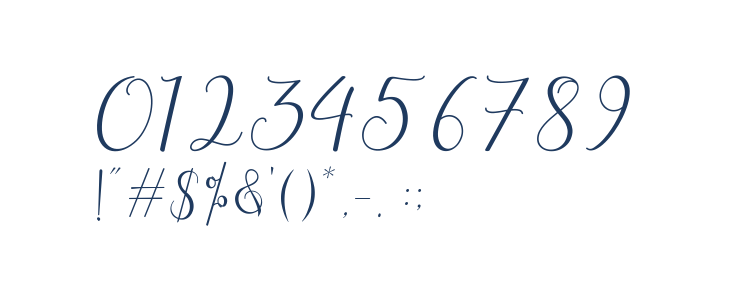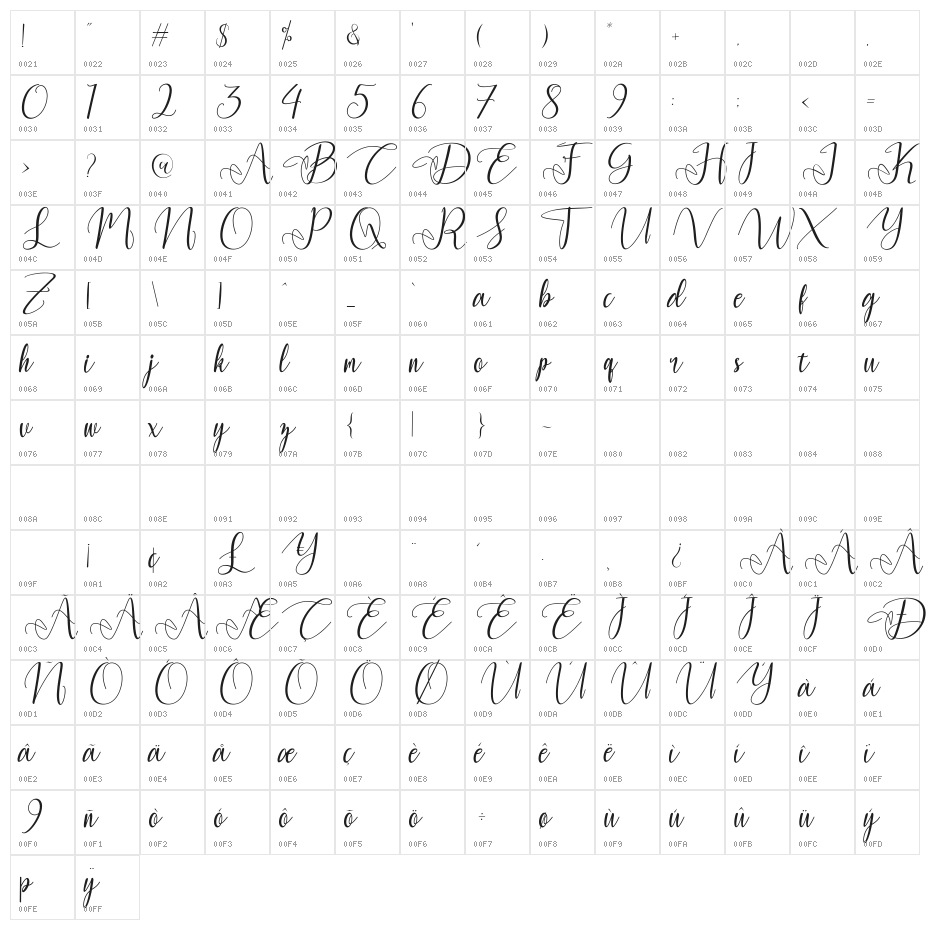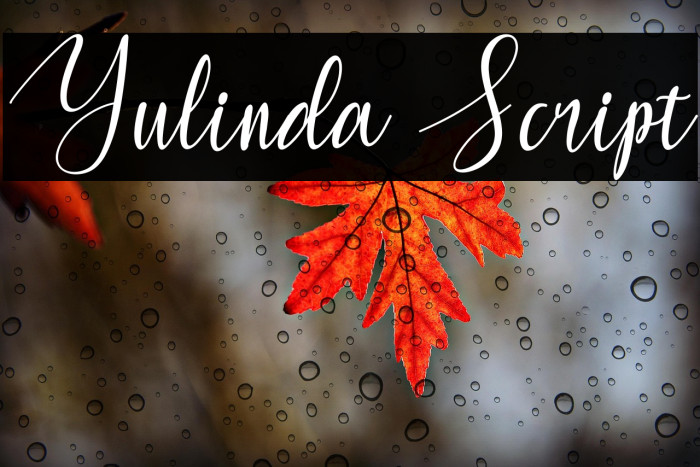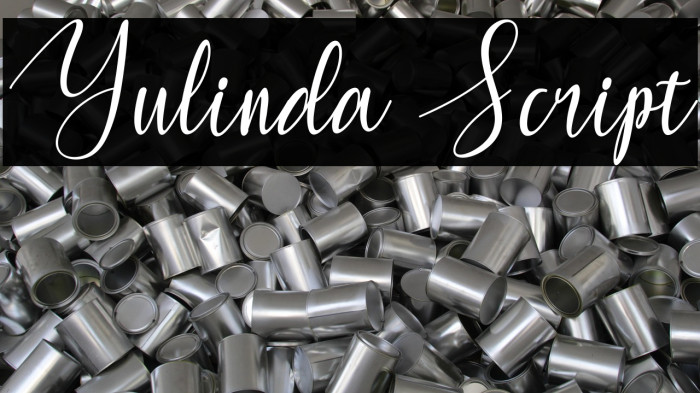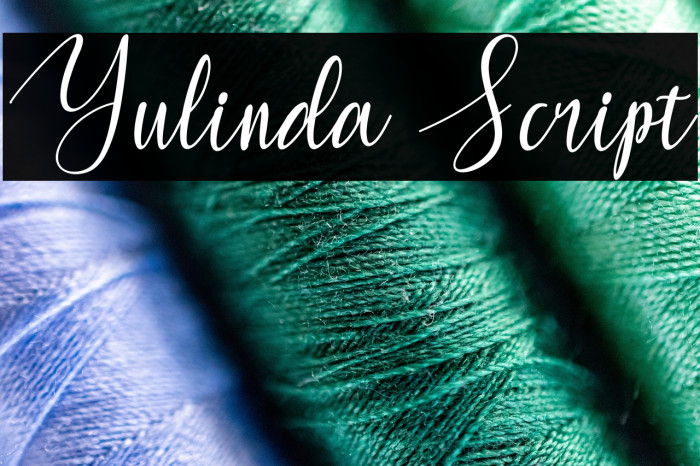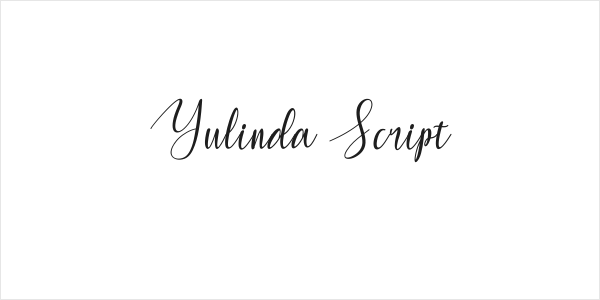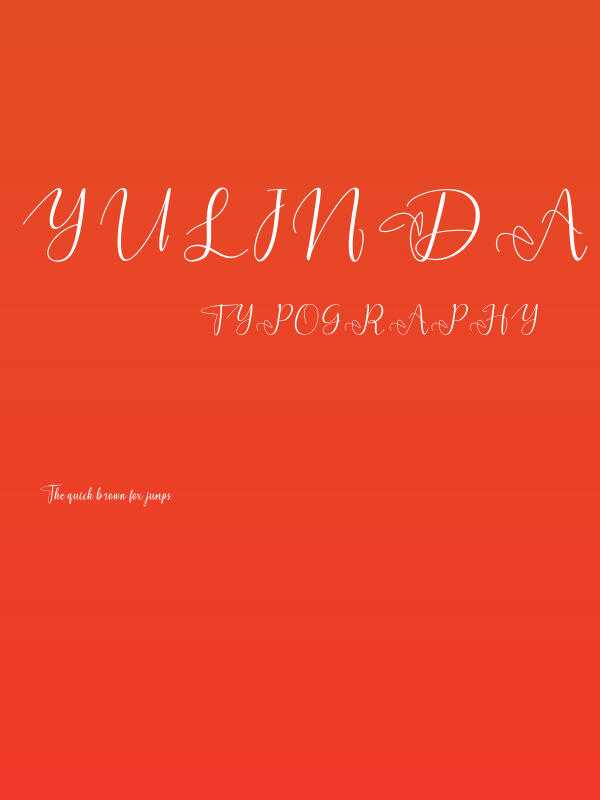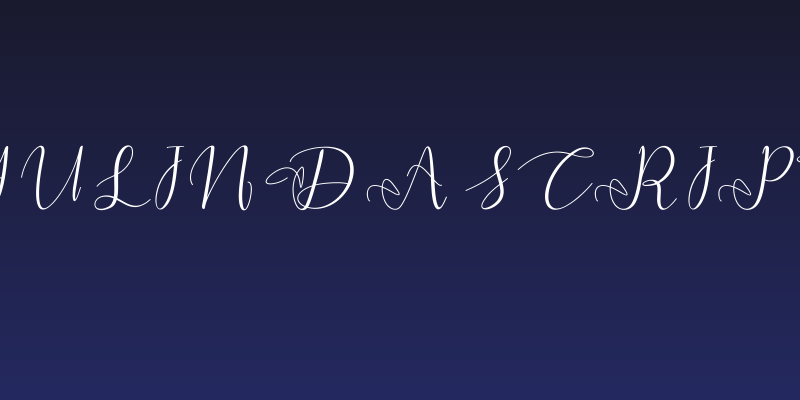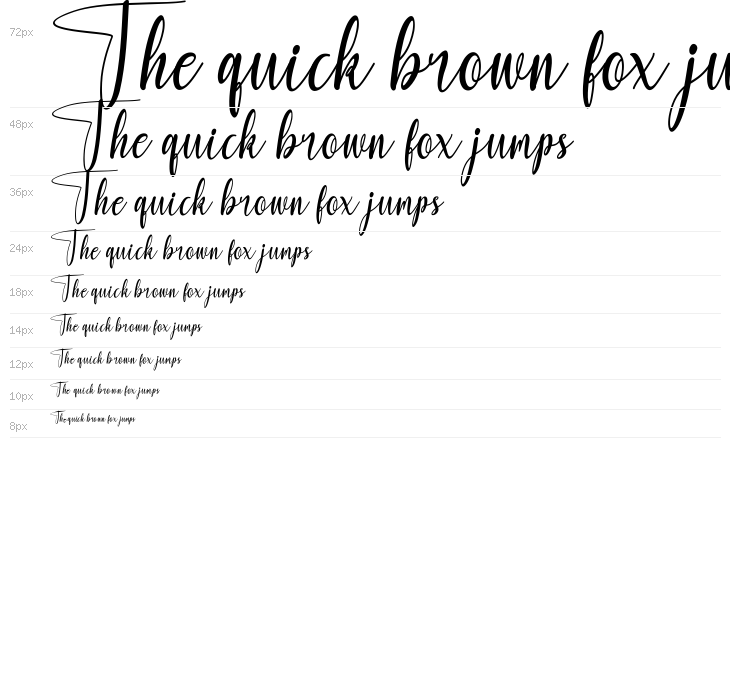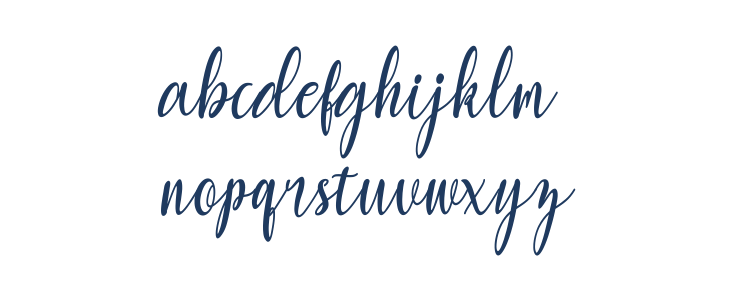
Yulinda Script Font
Yulinda Script Description
This elegant script font features a flowing, cursive style with intricate swashes and loops that give it a sophisticated and artistic appearance. The uppercase letters are adorned with decorative flourishes, while the lowercase letters maintain a smooth, connected flow. The numerals are stylishly curved, complementing the overall aesthetic. Special characters are designed with the same attention to detail, making this font ideal for creative and decorative applications. Its graceful lines and fluid strokes make it suitable for projects that require a touch of elegance and charm.
| Use Case | Logos, Invitations, Decorative text |
| Proposed Projects | Wedding invitations, greeting cards, branding, and elegant logo designs. |